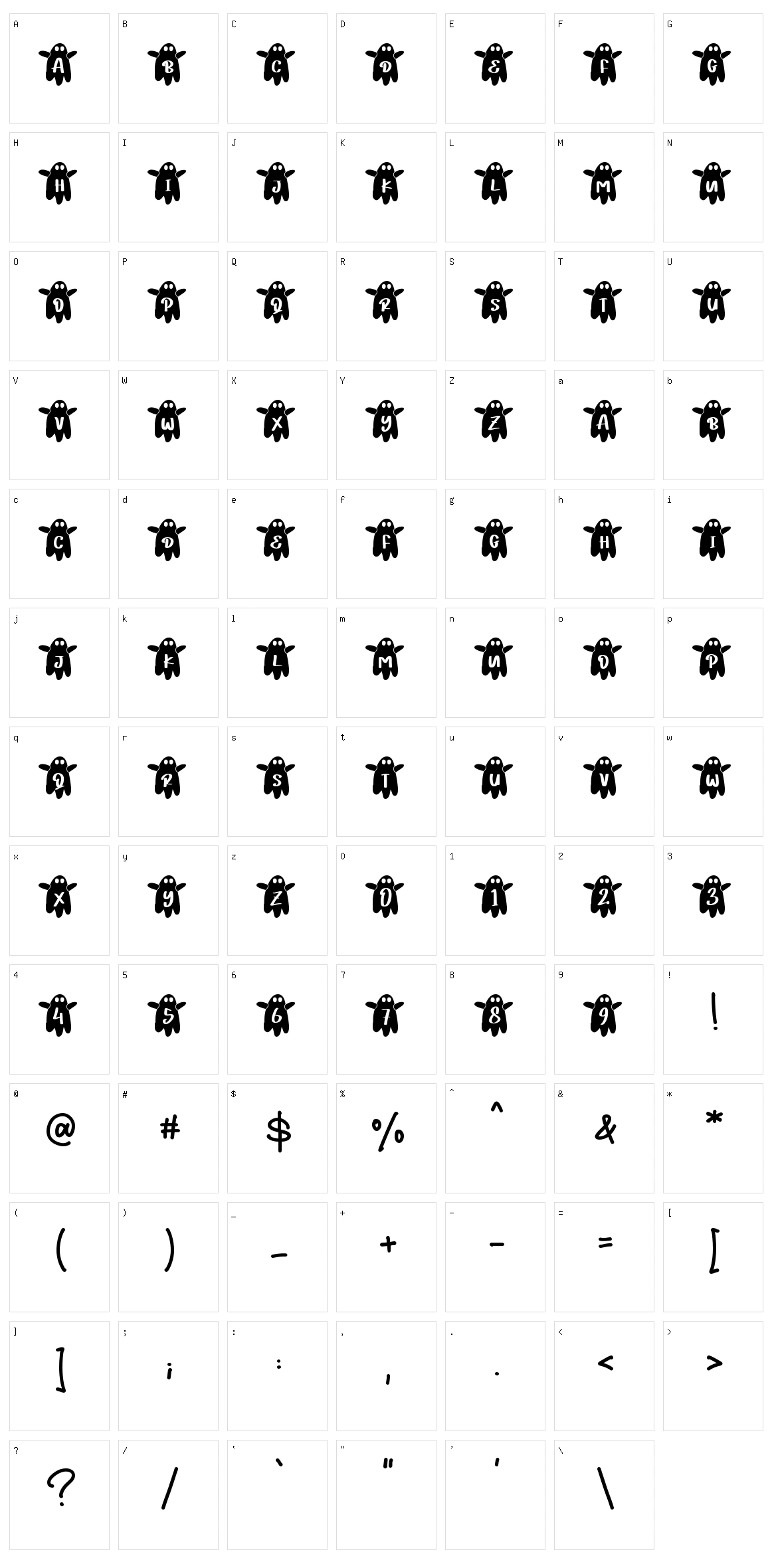
The free font Hantu is carefully designed by Letterafa Studio, showcasing a thoughtful balance of creativity and usability and falls under the Halloween font style. When you download the ZIP file, it contains only 470.21 KB of font files, making it lightweight and quick to download. Please review the license details below to understand permitted usage and distribution rights. If license information is not available, we recommend using this font for personal projects only or contacting the author directly for commercial usage permissions.